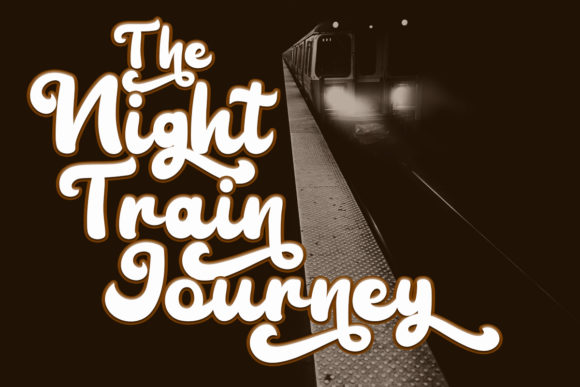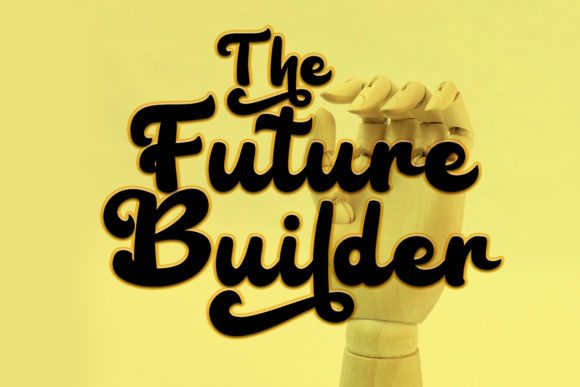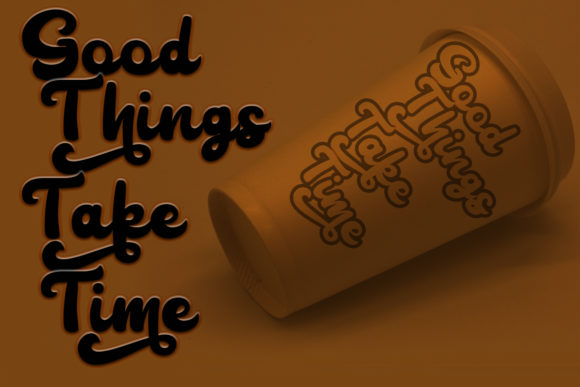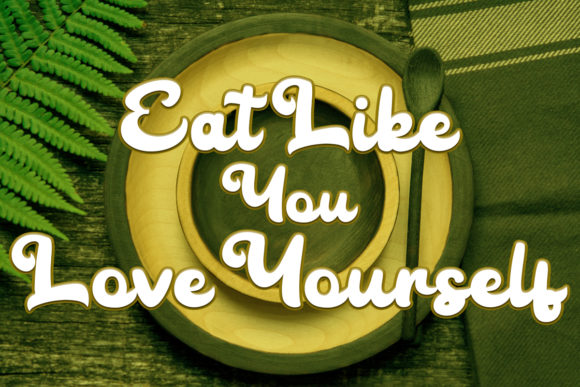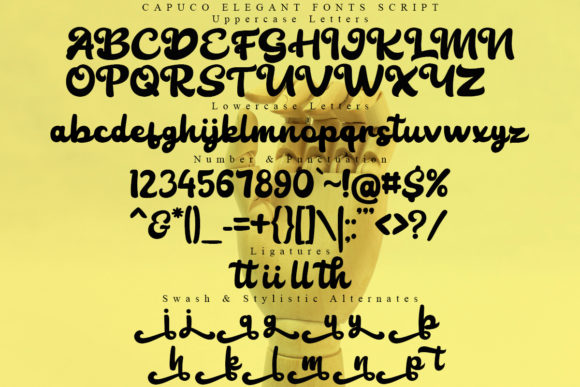
Introducing Capuco Font: The Ultimate Playful Script Font for Designers and Crafters
Are you tired of using the same old fonts for your digital designs, presentations, and greeting cards? Look no further! Capuco Font is here to revolutionize your creative projects with its playful, thick lettered, and vintage styled script font. In this article, we’ll dive into the world of Capuco Font and explore its features, benefits, and uses.
What is Capuco Font?
Capuco Font is a unique and eye-catching script font that is perfect for adding a touch of personality to your designs. Its playful and thick lettered style makes it stand out from other fonts, while its vintage vibe adds a sense of nostalgia and charm. Whether you’re a designer, crafter, or simply someone who loves to create, Capuco Font is an excellent choice for your next project.
Features of Capuco Font
- Playful and Thick Lettered: Capuco Font features bold and chunky letters that are sure to grab attention.
- Vintage Styled: The font’s vintage vibe adds a touch of nostalgia and charm to your designs.
- Script Font: Capuco Font is a script font that is perfect for adding a personal touch to your projects.
- High-Quality: The font is designed with high-quality and clear lettering, making it perfect for digital and print use.
Benefits of Using Capuco Font
So, why choose Capuco Font for your next project? Here are just a few benefits of using this amazing font:
- Adds Personality: Capuco Font adds a touch of personality and whimsy to your designs, making them stand out from the crowd.
- Versatile: The font is perfect for a variety of projects, including digital designs, presentations, greeting cards, and more.
- Easy to Read: Despite its bold and chunky style, Capuco Font is easy to read and understand, making it perfect for body text and headings.
- Unique: Capuco Font is a unique and original font that will set your designs apart from others.
Uses of Capuco Font
So, what can you use Capuco Font for? The possibilities are endless! Here are a few ideas to get you started:
- Digital Designs: Use Capuco Font to add a touch of personality to your digital designs, such as social media graphics, blog posts, and more.
- Presentations: Add a professional touch to your presentations with Capuco Font’s bold and chunky style.
- Greeting Cards: Create beautiful and unique greeting cards with Capuco Font’s playful and vintage vibe.
- Crafting: Use Capuco Font to add a personal touch to your crafting projects, such as scrapbooking, journaling, and more.
Tips for Using Capuco Font
Here are a few tips for getting the most out of Capuco Font:
- Experiment with Colors: Try pairing Capuco Font with different colors to add an extra touch of personality to your designs.
- Mix and Match: Experiment with mixing and matching Capuco Font with other fonts to create a unique and eye-catching look.
- Use it for Headings: Use Capuco Font for headings and titles to add a touch of personality to your designs.
In conclusion, Capuco Font is a playful, thick lettered, and vintage styled script font that is perfect for designers and crafters. Its unique features, benefits, and uses make it an excellent choice for a variety of projects. Whether you’re looking to add a touch of personality to your digital designs, presentations, or greeting cards, Capuco Font is the perfect choice. So why wait? Download Capuco Font today and start creating!